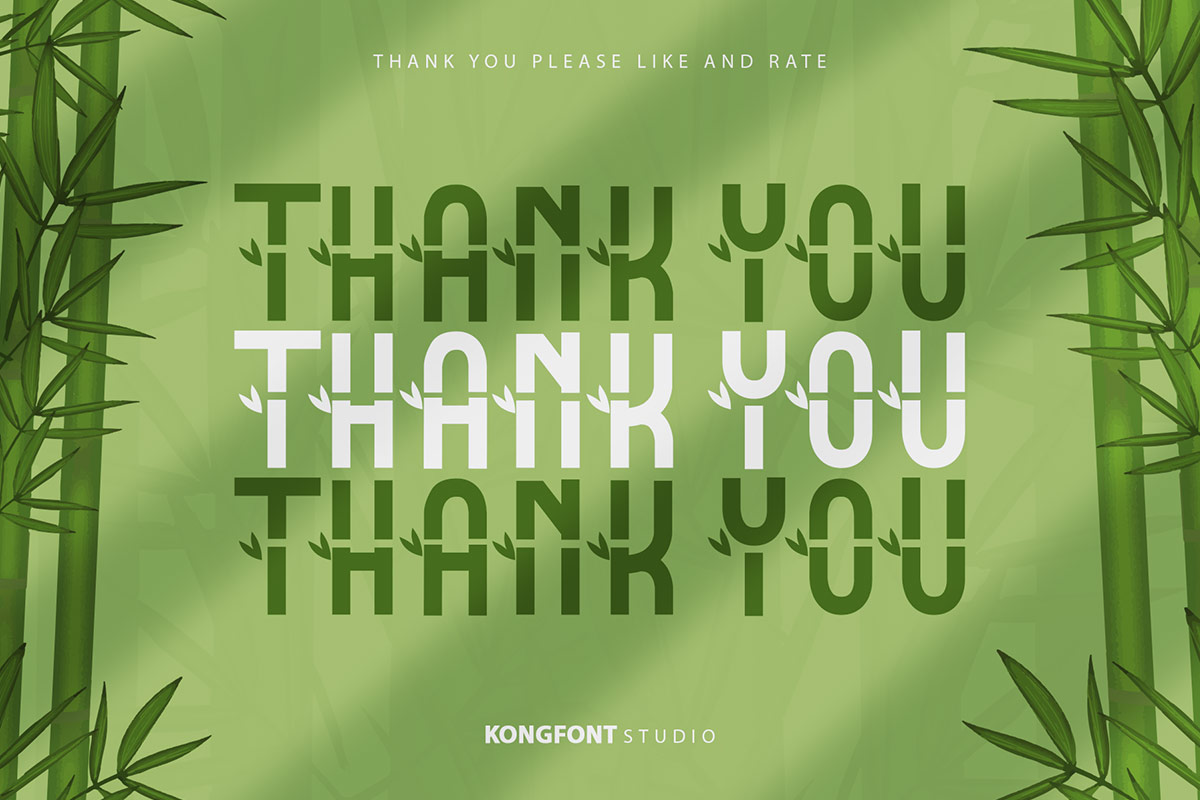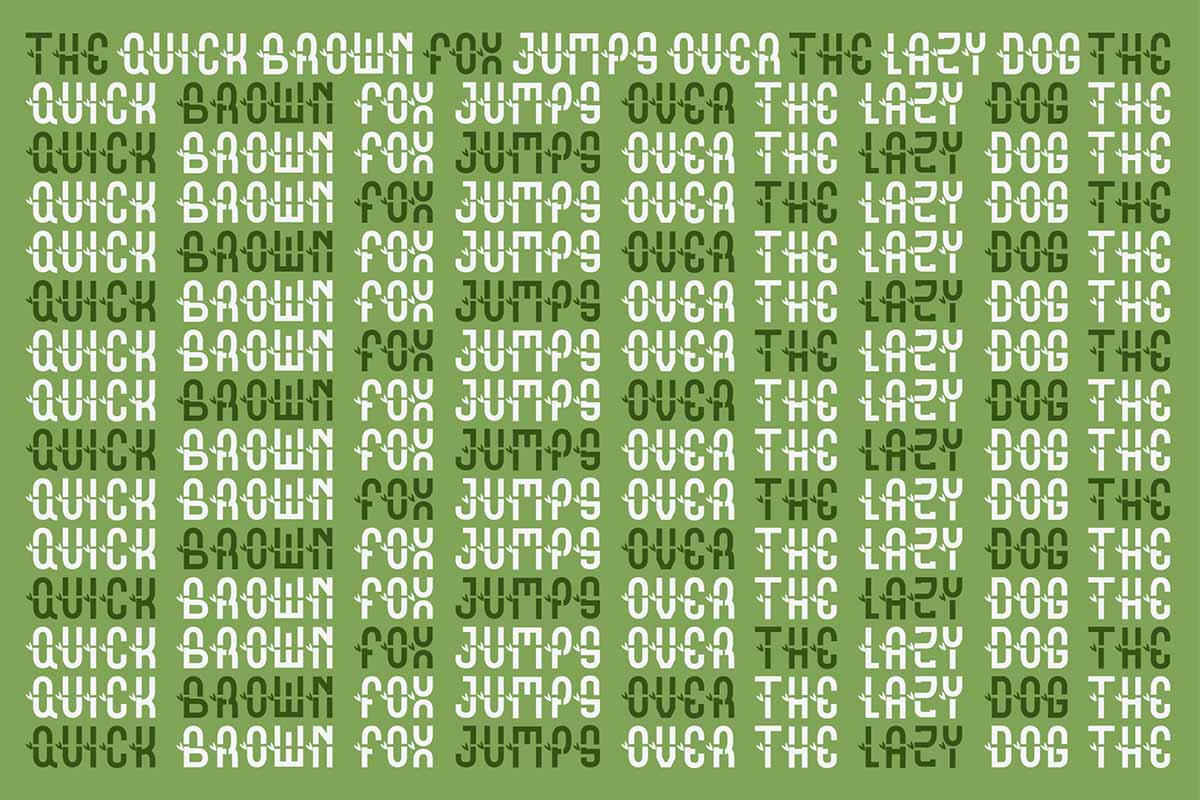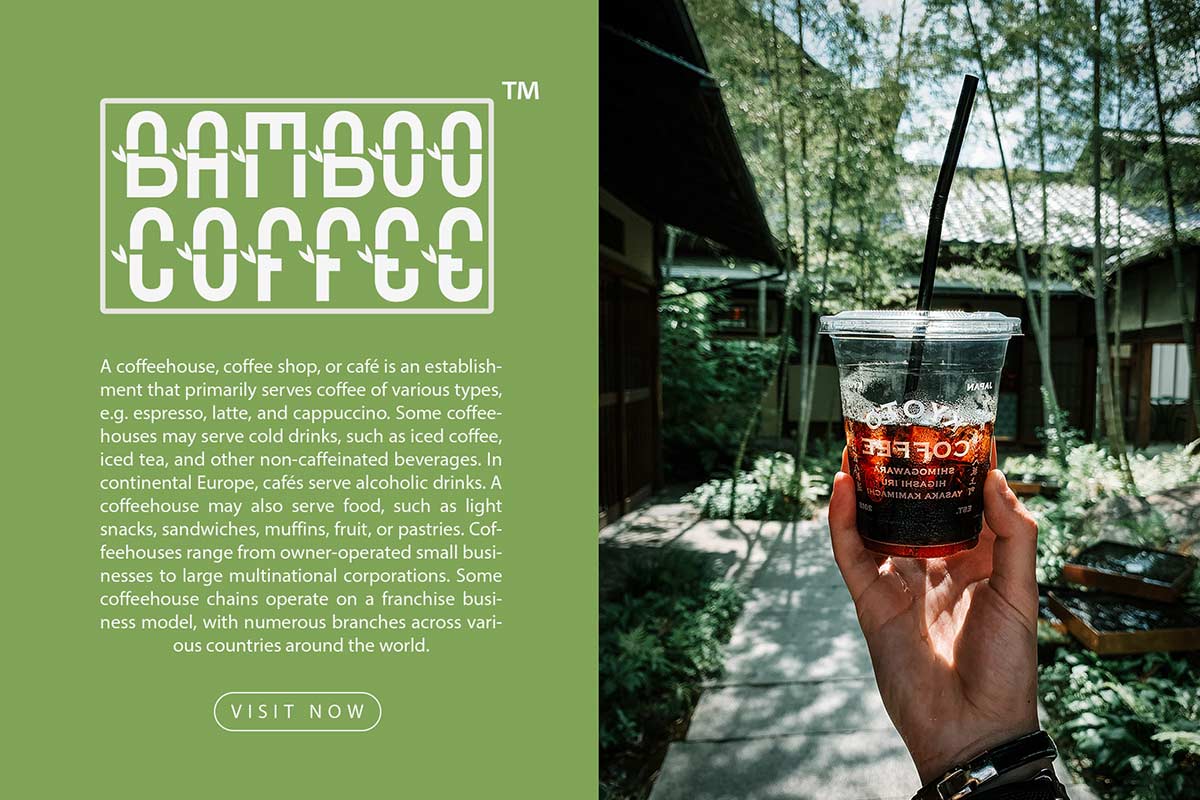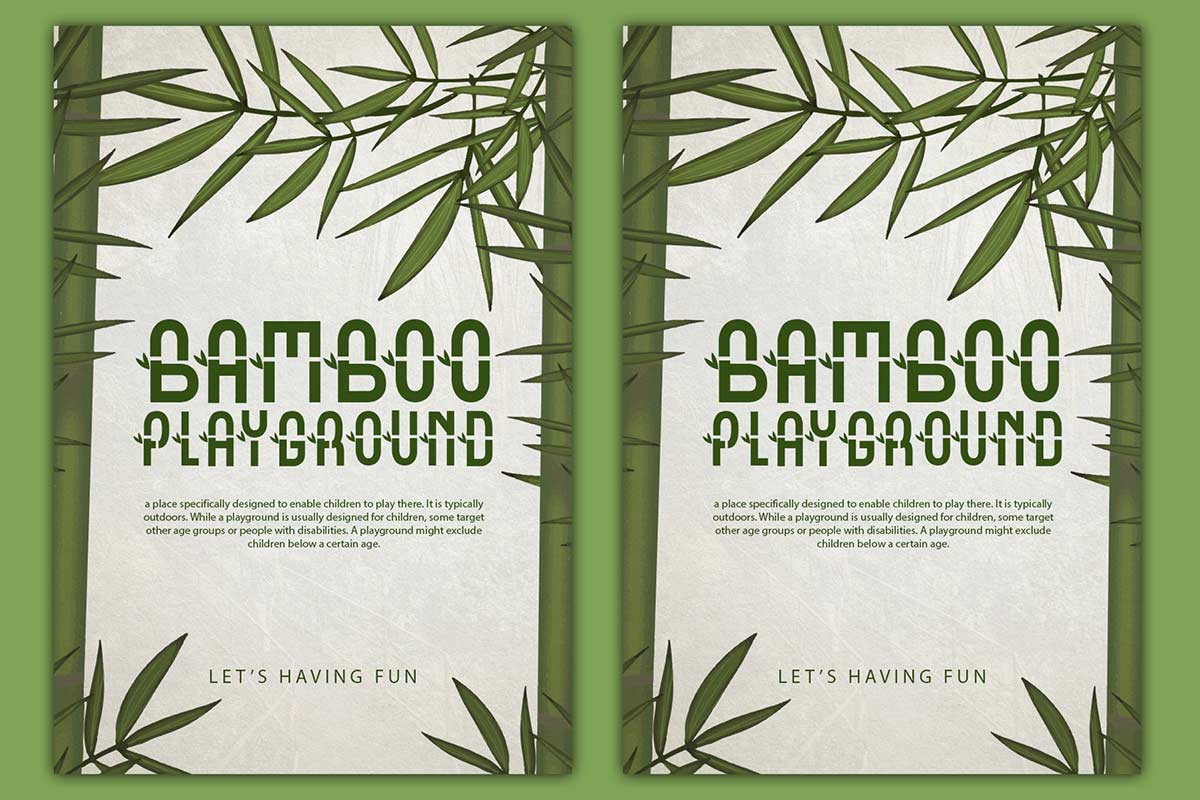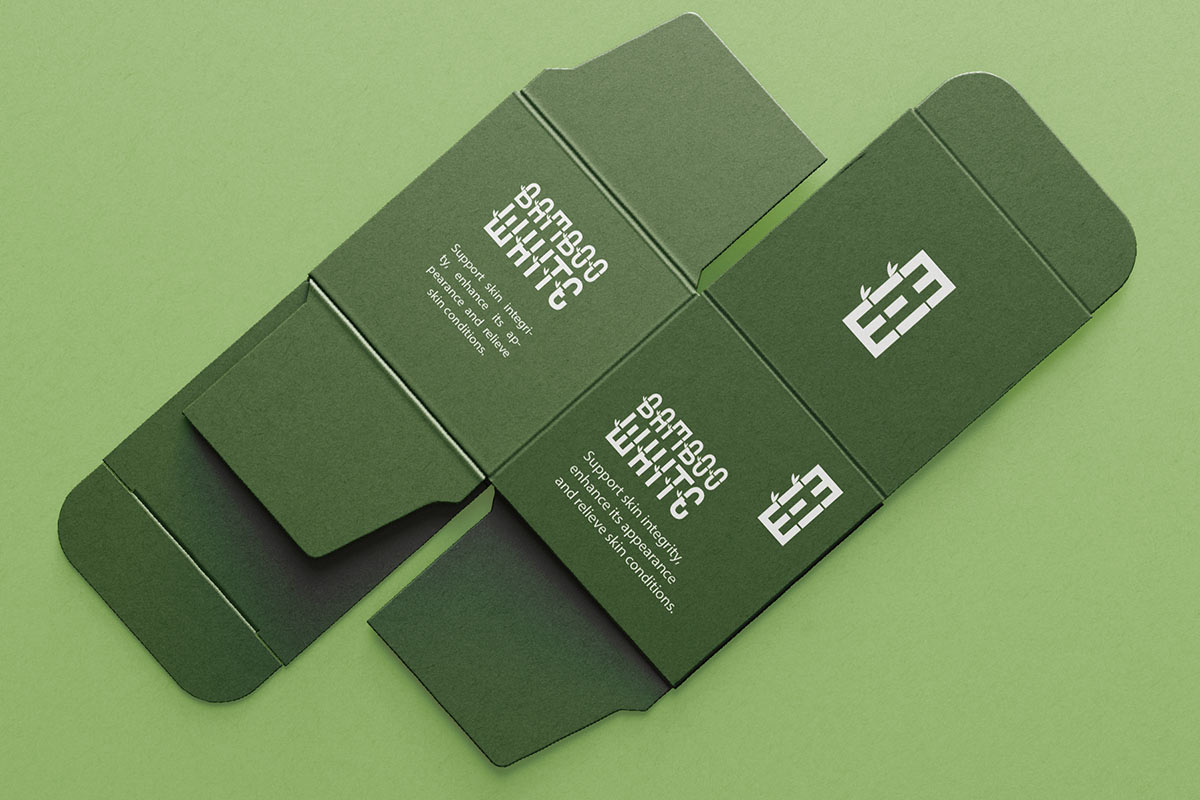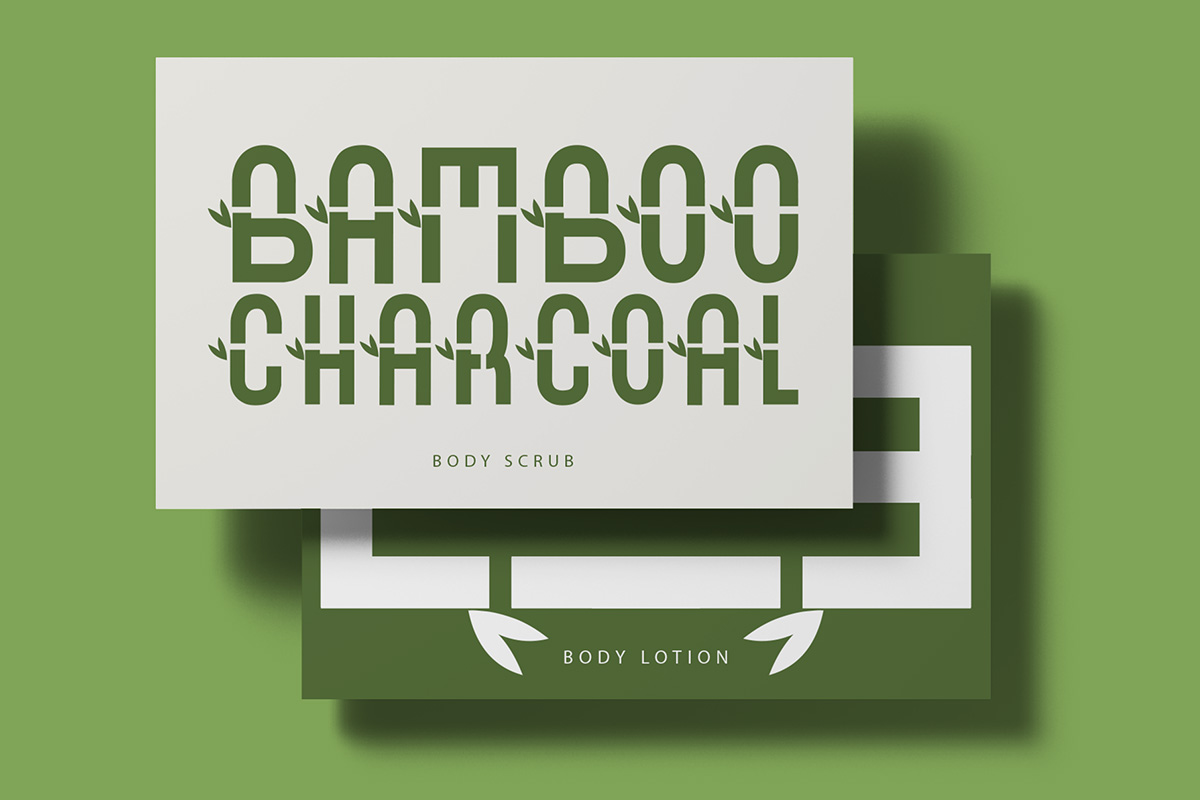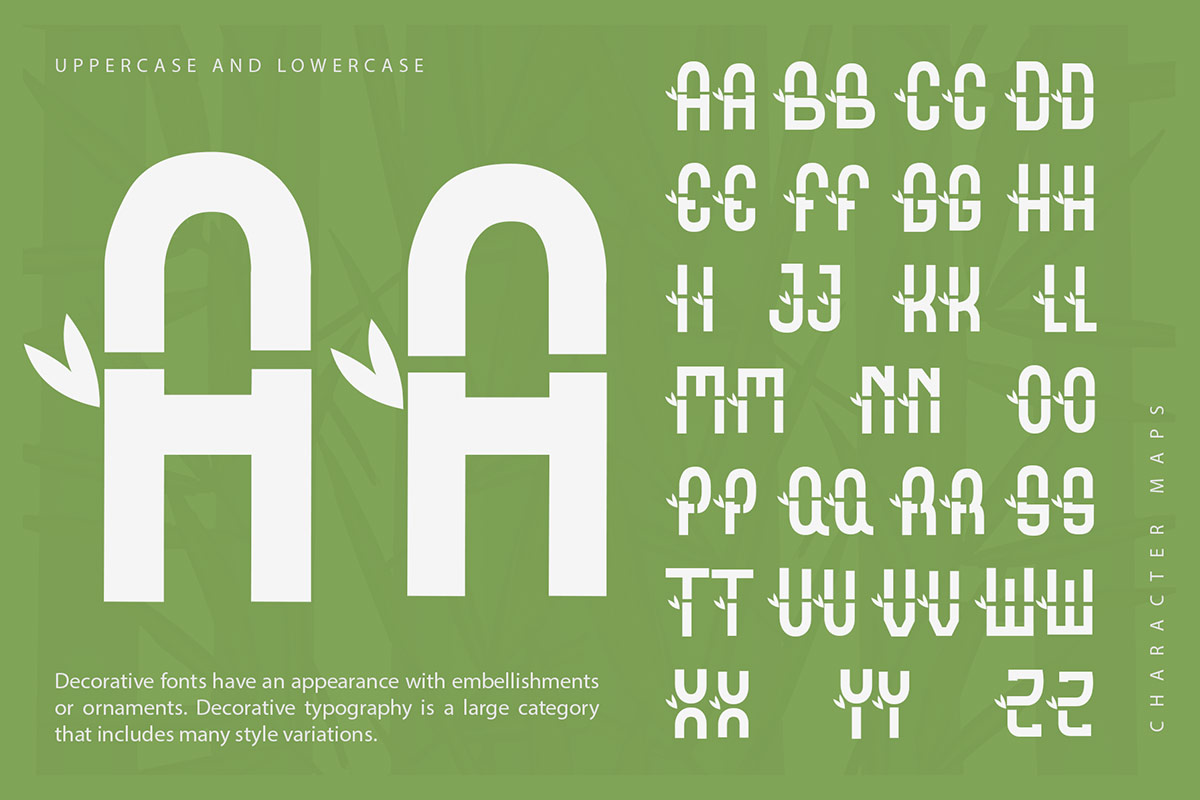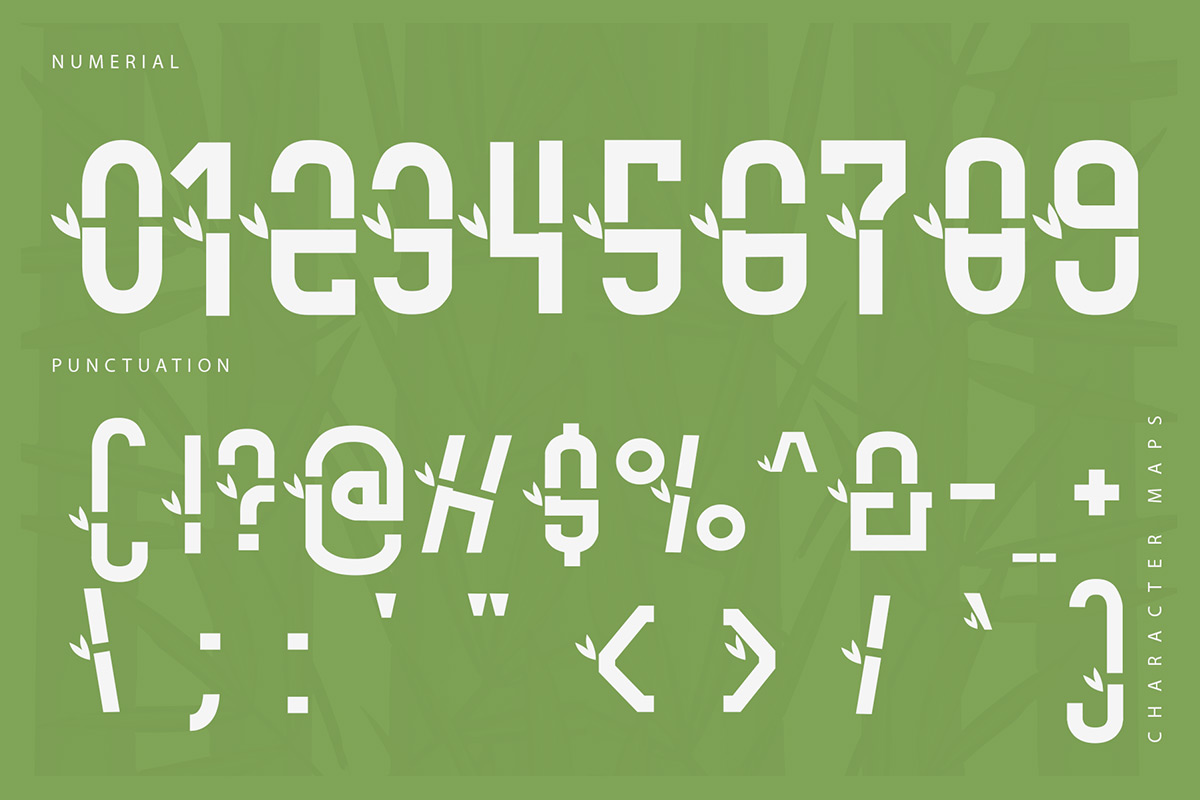
Da Bamboo Font The Display font type, Da Bamboo Decorative Font features unique font elements. Each letter of this font is not easy to distinguish. The letters in this font resemble streams of leaves designed to look modern, unique, and fresh. This typeface is the best for projects using themes of nature, kids, environment, and visual reality. This font can be used as a digital font, such as on the web, video, and other displays, and as a printed font on posters, banners, and book covers. Da Bamboo Decorative Font can use on the covers of tech books and magazines. Da Bamboo Decorative Font is not suitable for writing newspapers, magazines, or articles on the web. This font is better used for writing short sentences or words because it will look good and modern. Our display fonts collection is compatible to use as; Figma fonts, Canva fonts, Freepik Fonts, and Adobe Fonts. They also work as Windows Fonts and Apple Fonts. For your social media needs, you can use and install fonts in our collection of Espot & Futuristic fonts to use as Instagram Fonts, Facebook Fonts, and Twitter Fonts.